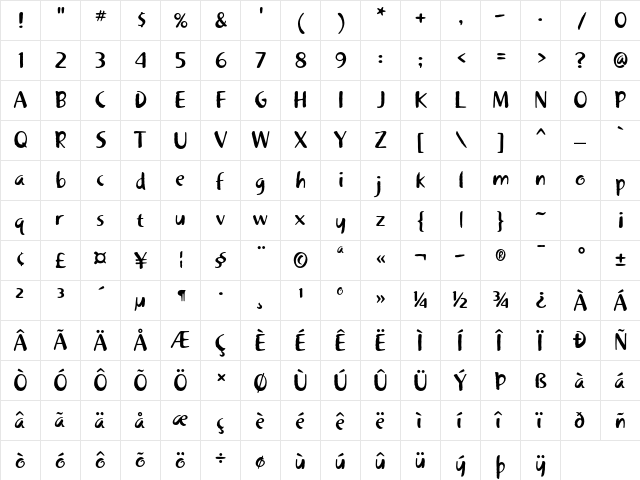
Khaki Std 1
| Designer | Steve Miggas |
Design Context for Khaki Std Typeface
Khaki Std is a composed and adaptable typeface that performs quietly and consistently across a wide range of design contexts.